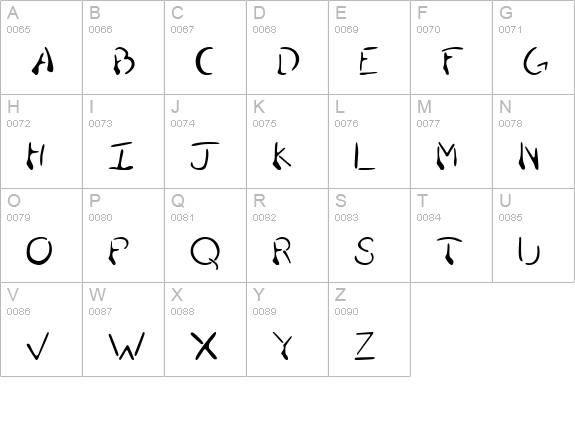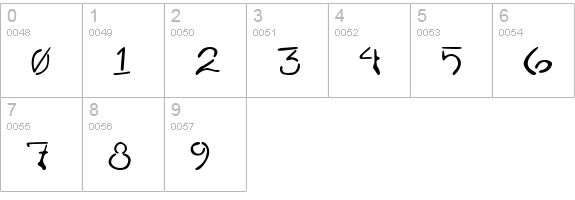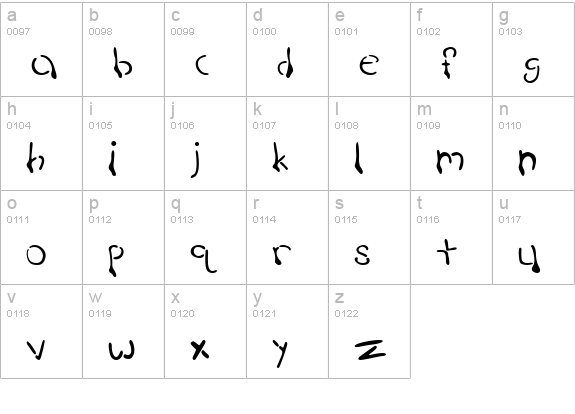
Puddle Oozing Font Details
Puddle Oozing font is a whimsical and playful typeface that exudes a unique charm and character. Its fluid and organic design gives off a sense of movement and dynamism, making it perfect for projects that require a touch of creativity and originality. The irregular shapes and uneven edges of the letters create a fun and quirky look that is sure to make your text stand out. Best of all, Puddle Oozing font is available for free download at FontsMarket.com. This means you can easily add this delightful font to your design arsenal without any cost. Whether you're working on a poster, logo, or any other creative project, Puddle Oozing font is sure to inject a dose of fun and personality into your work. Download it today and let your creativity flow with this charming and free typeface.